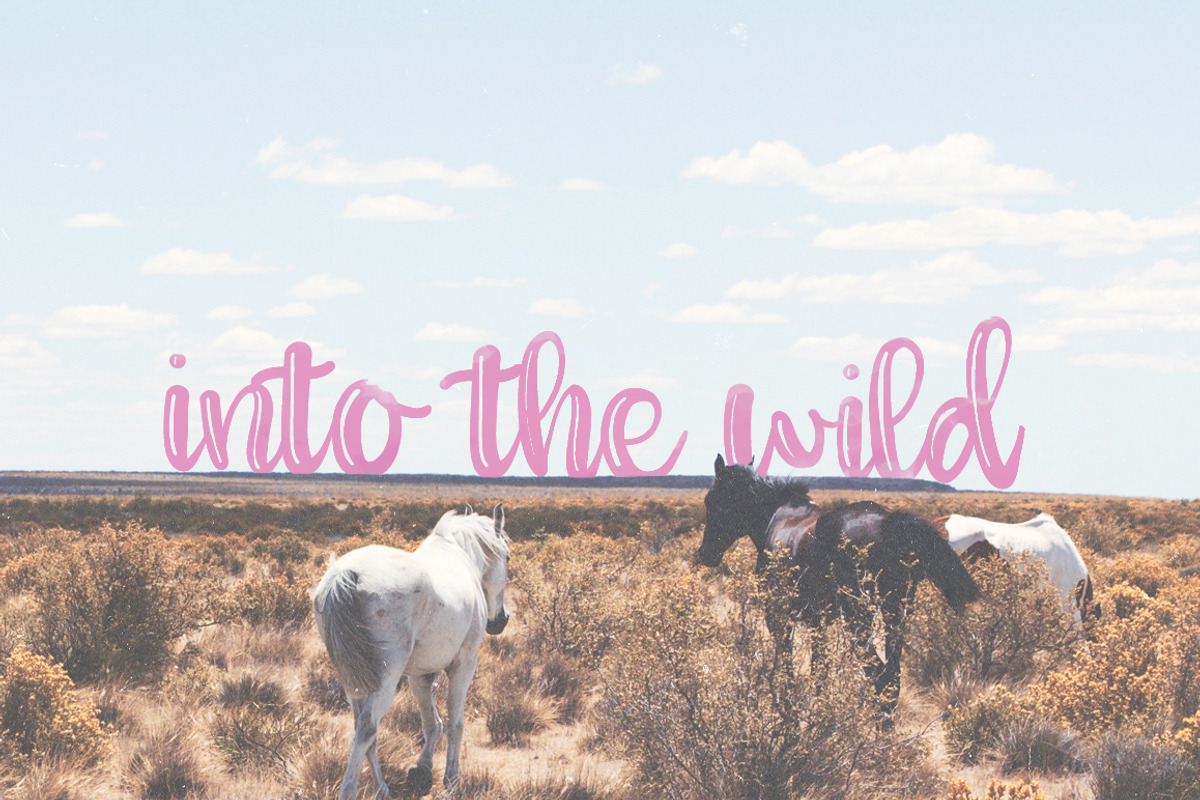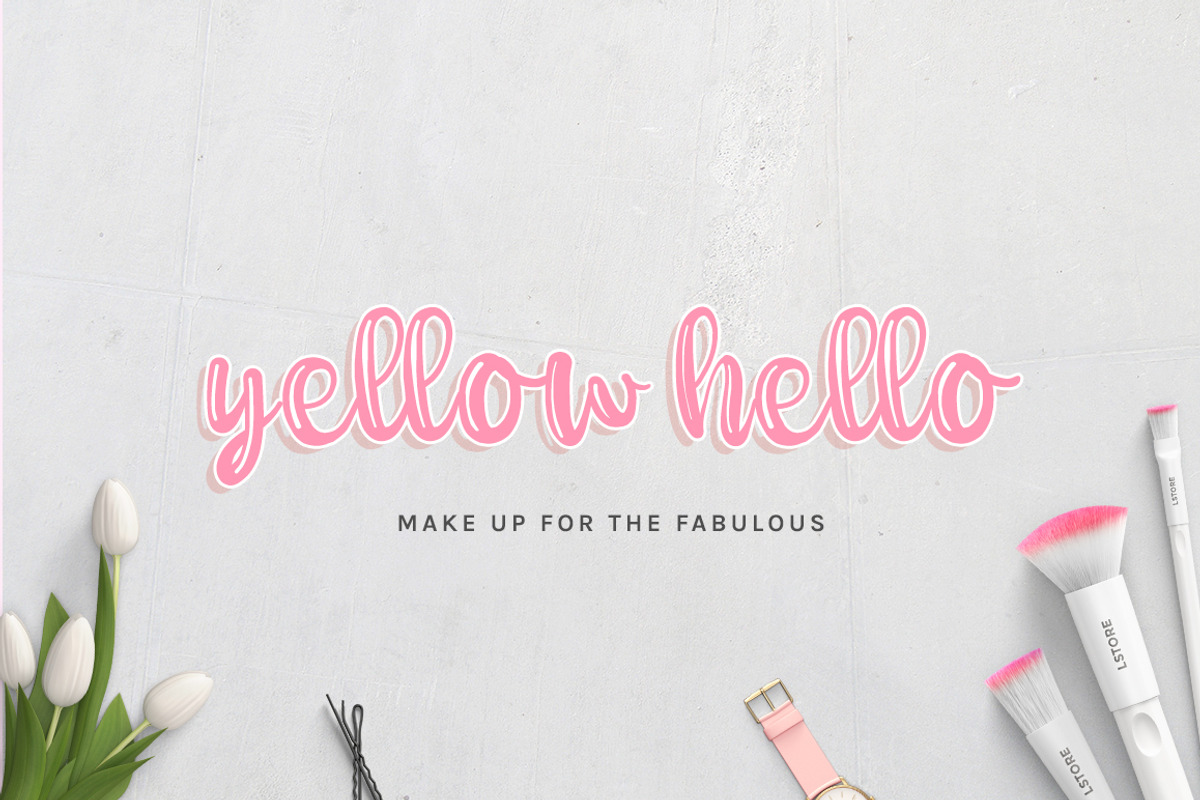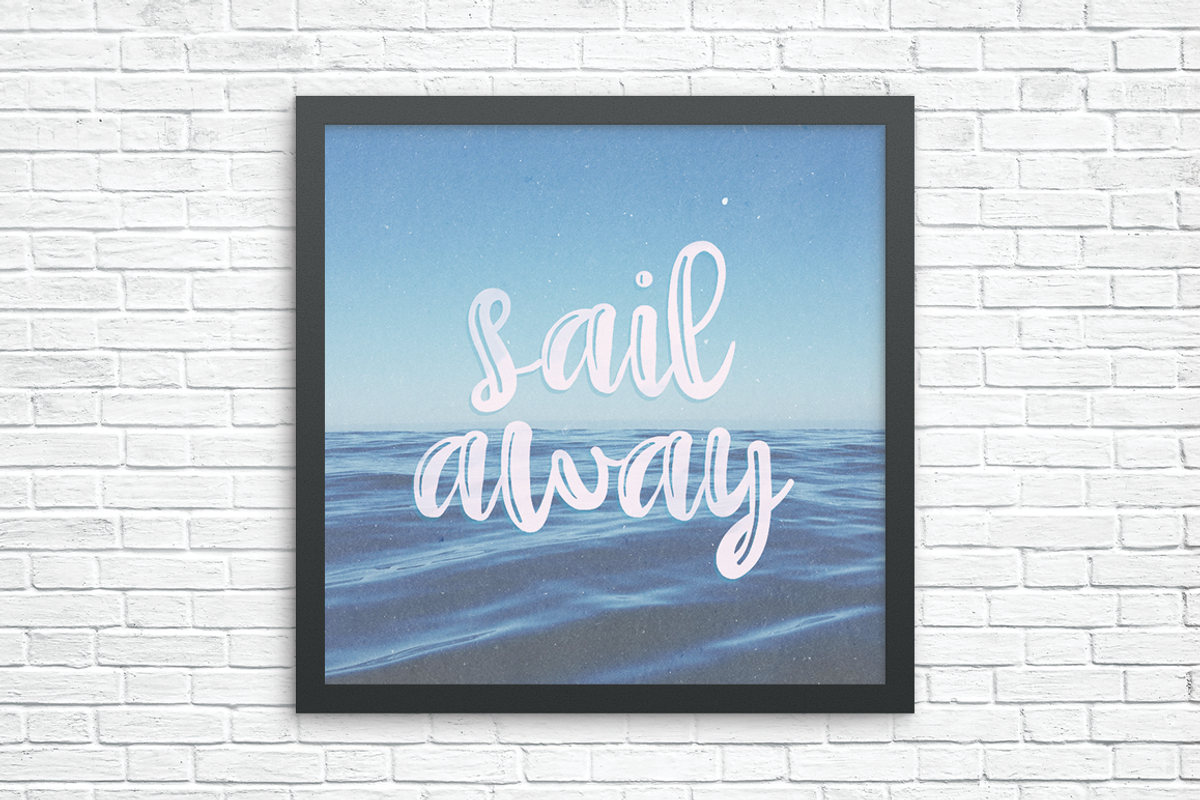
Willow Script Font
Willow Script is a brand new thick curly script font, including a transparent shadow within each character. As well as a range of alternate characters and ligatures, that are 100% accessible to all. It is suitable for use as a product logo, letters, invitation, food menus, or post card for your loved ones, etc.